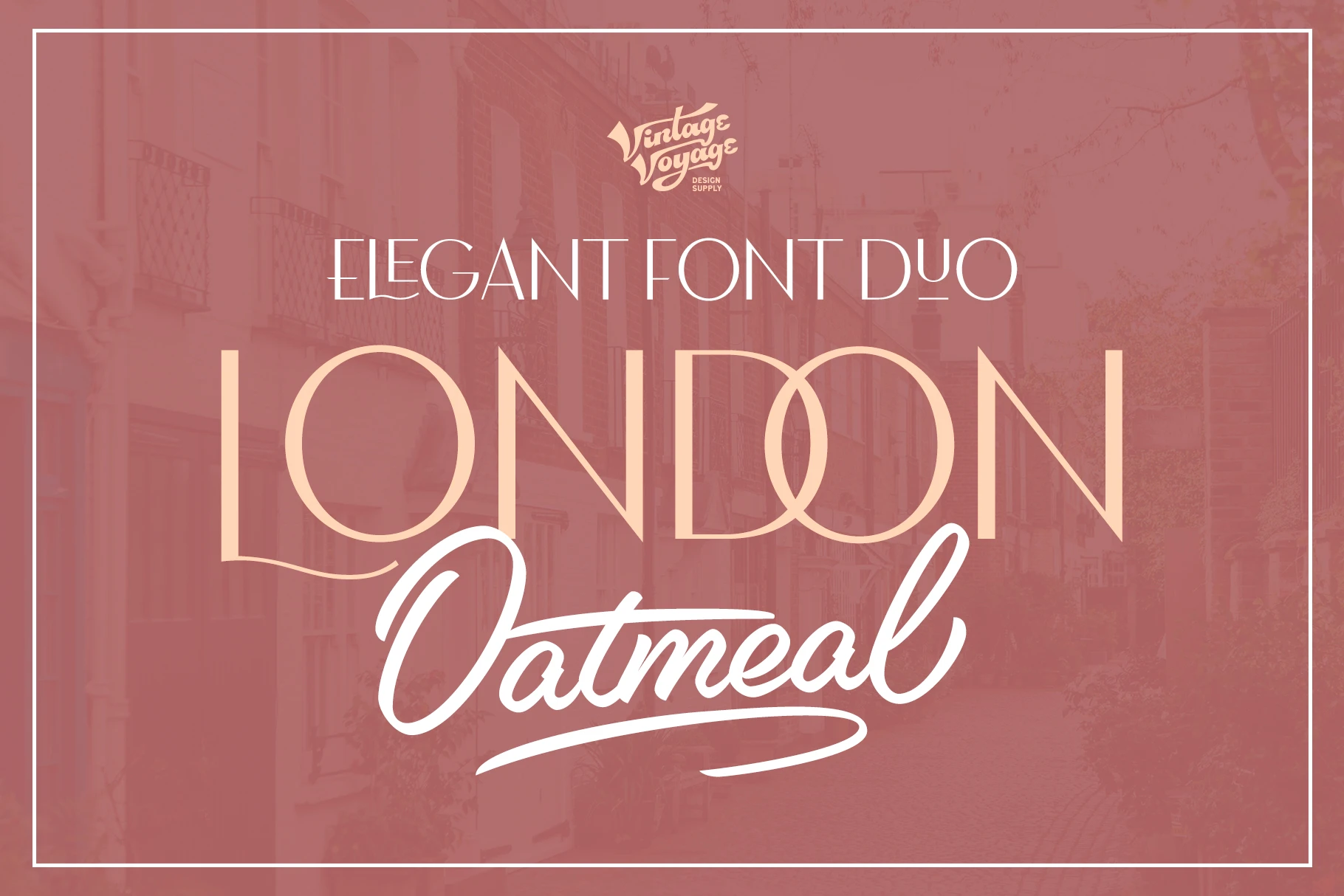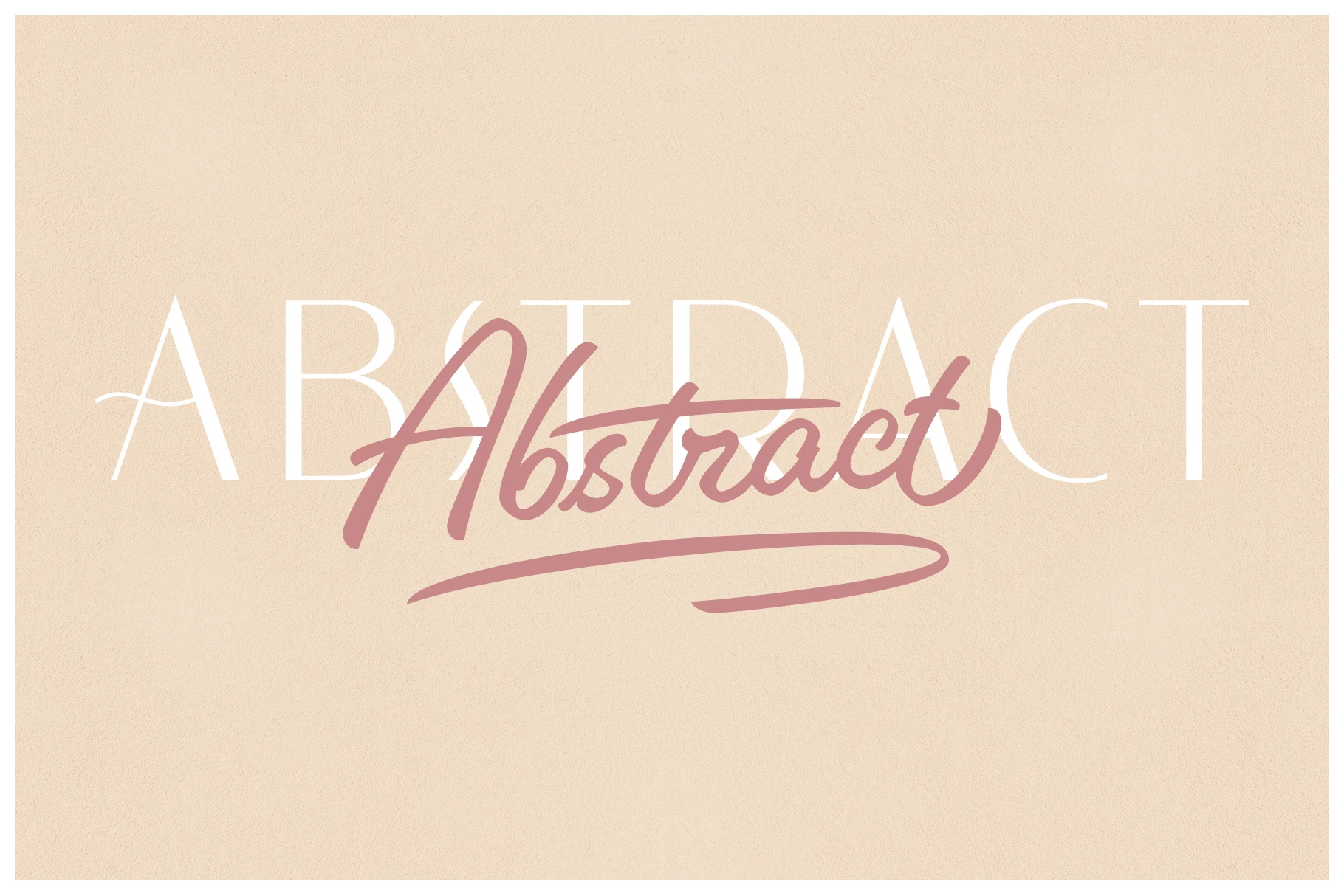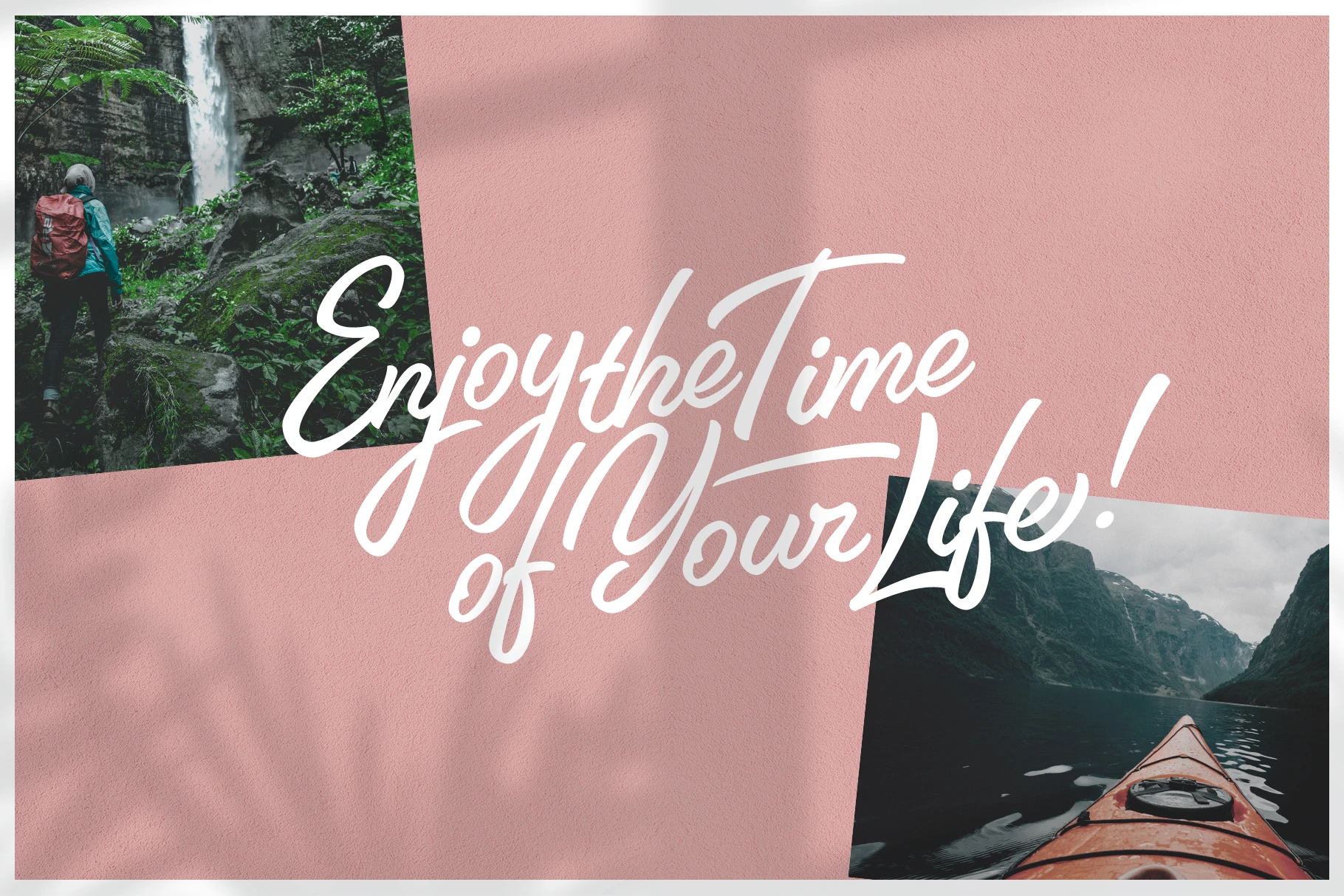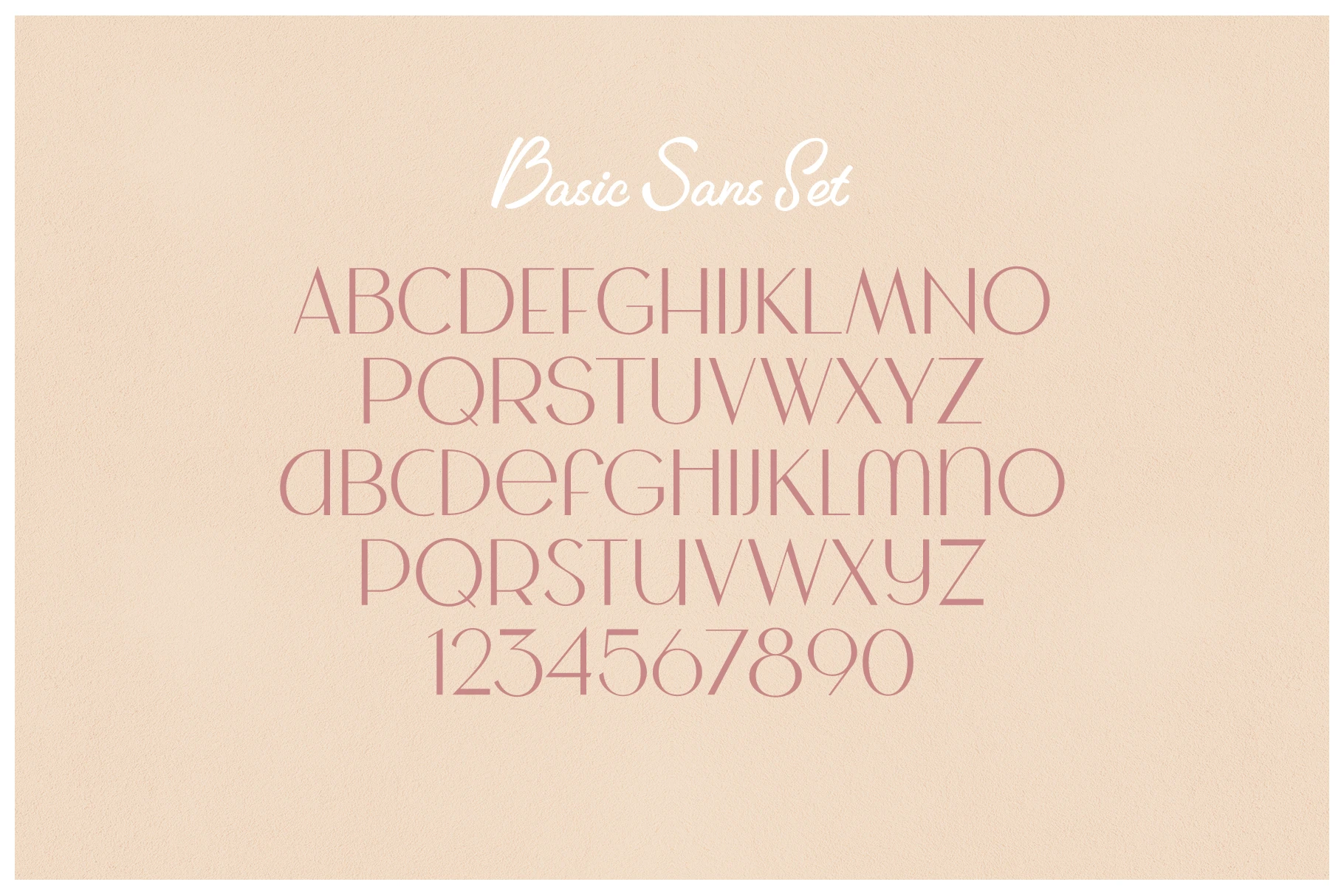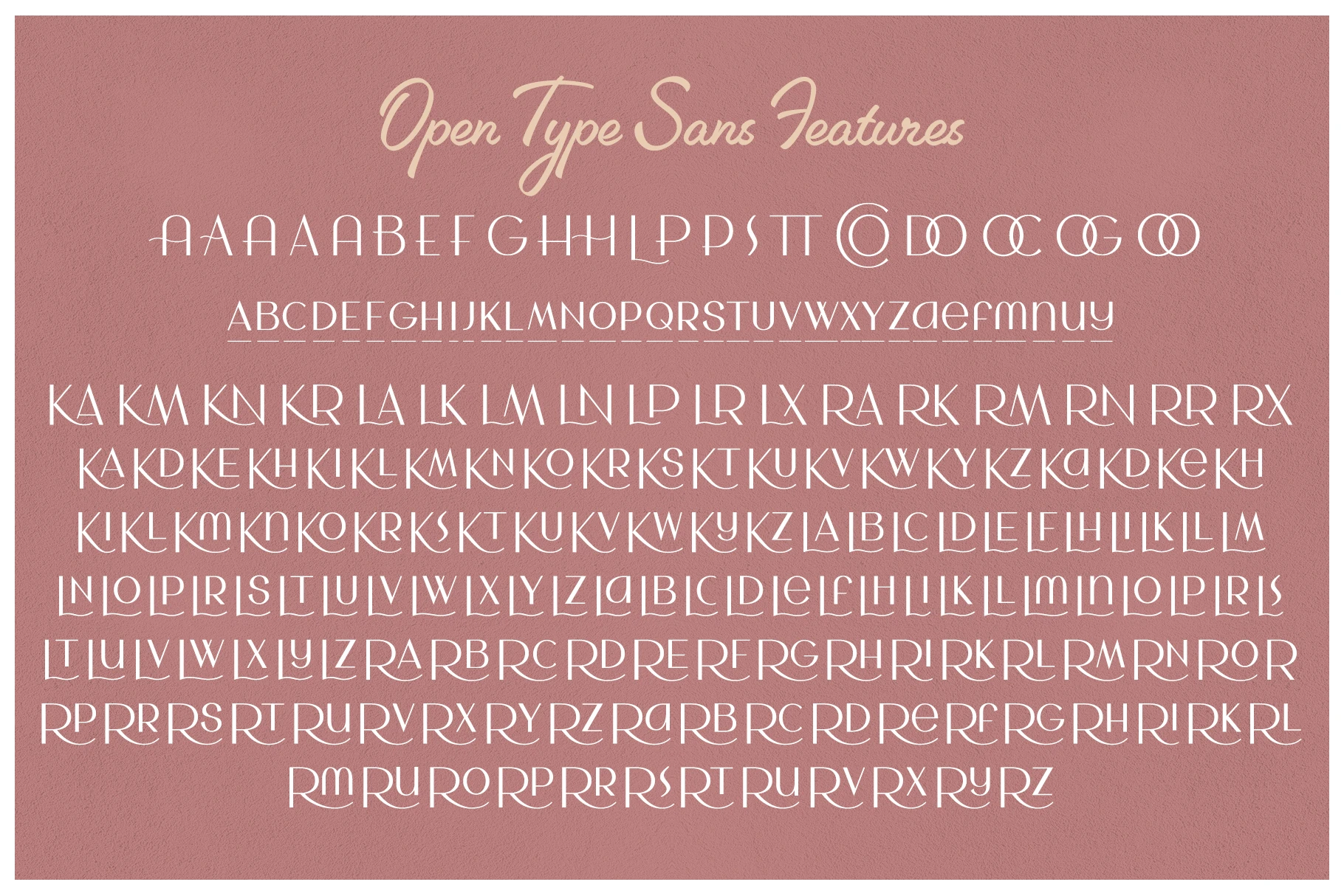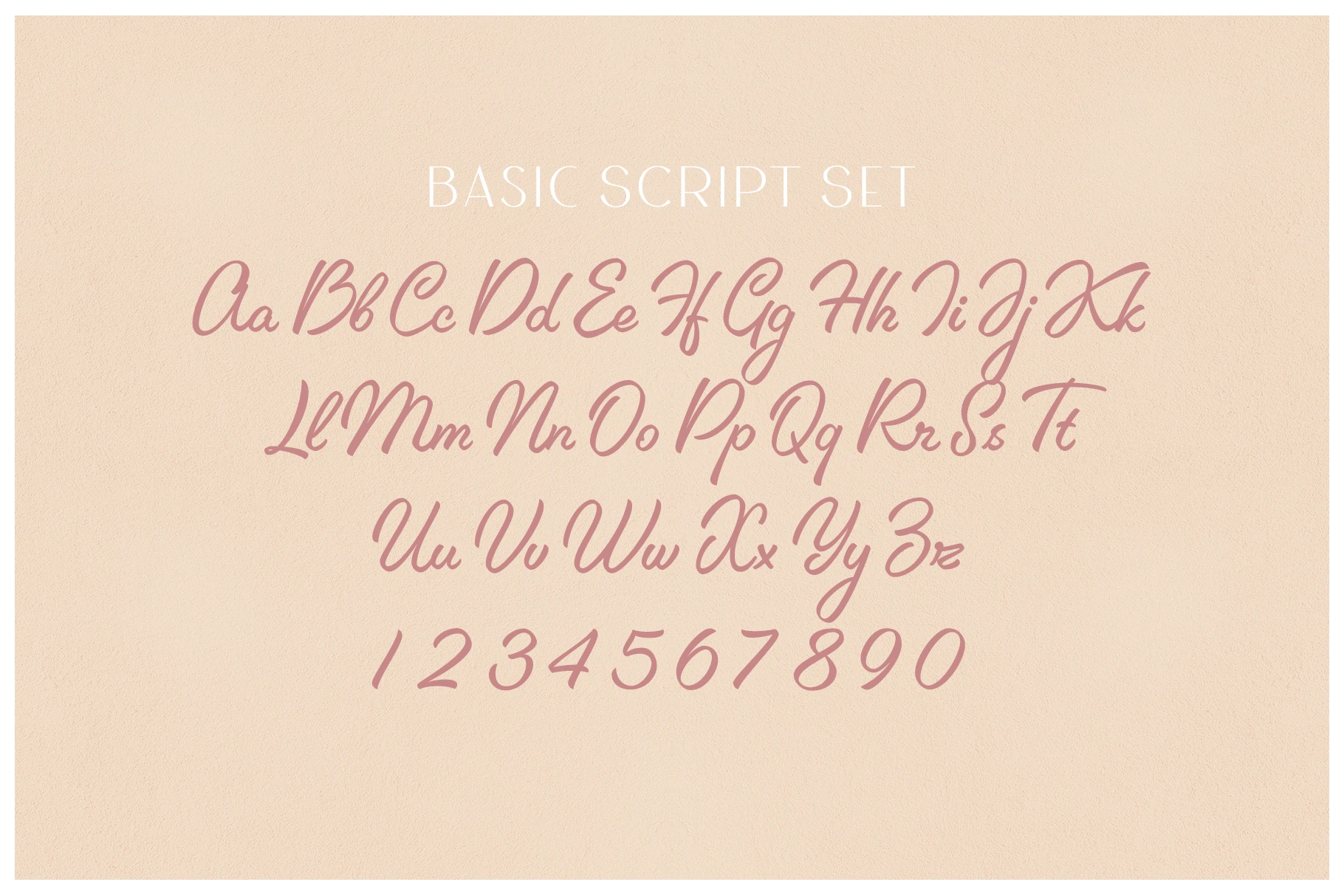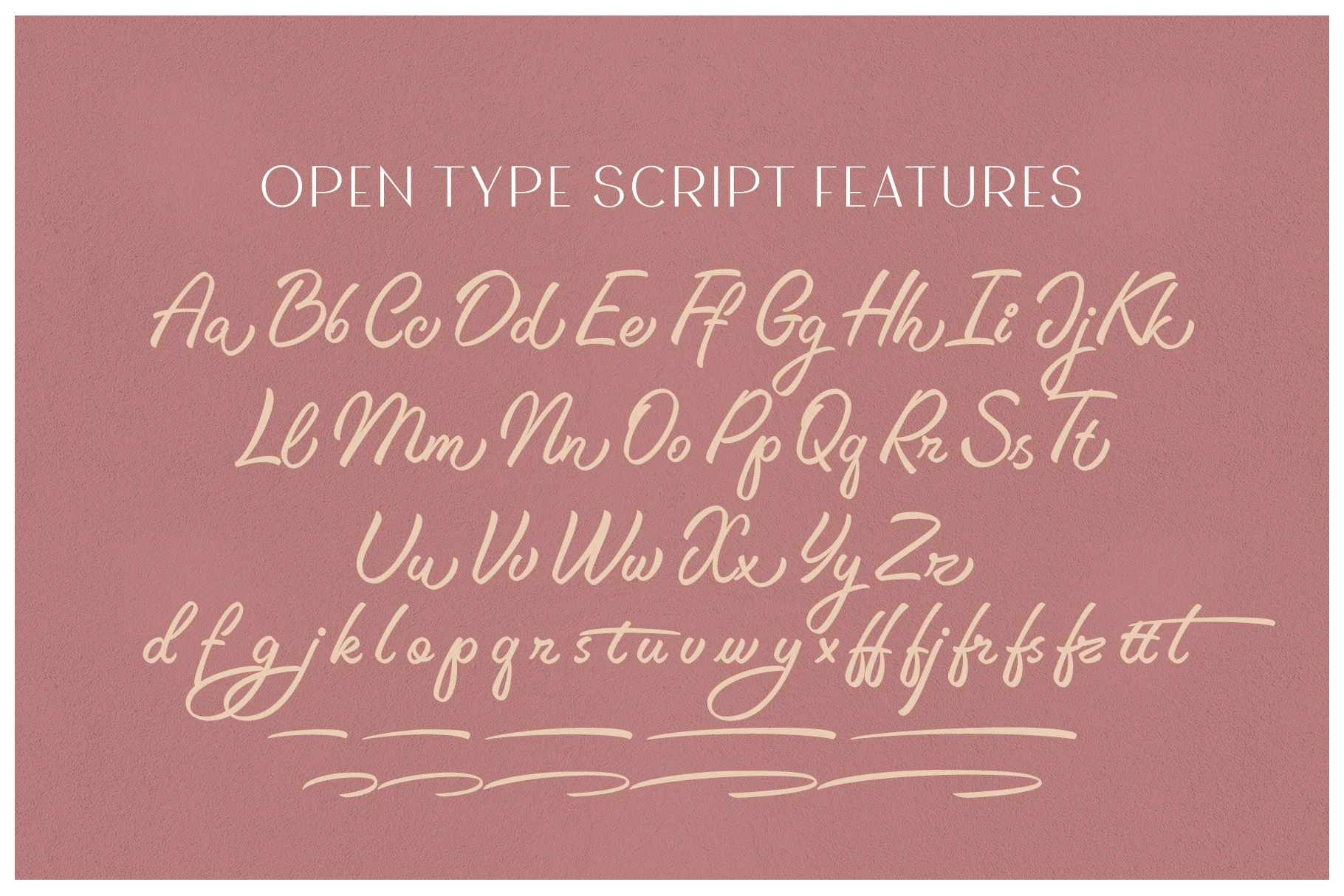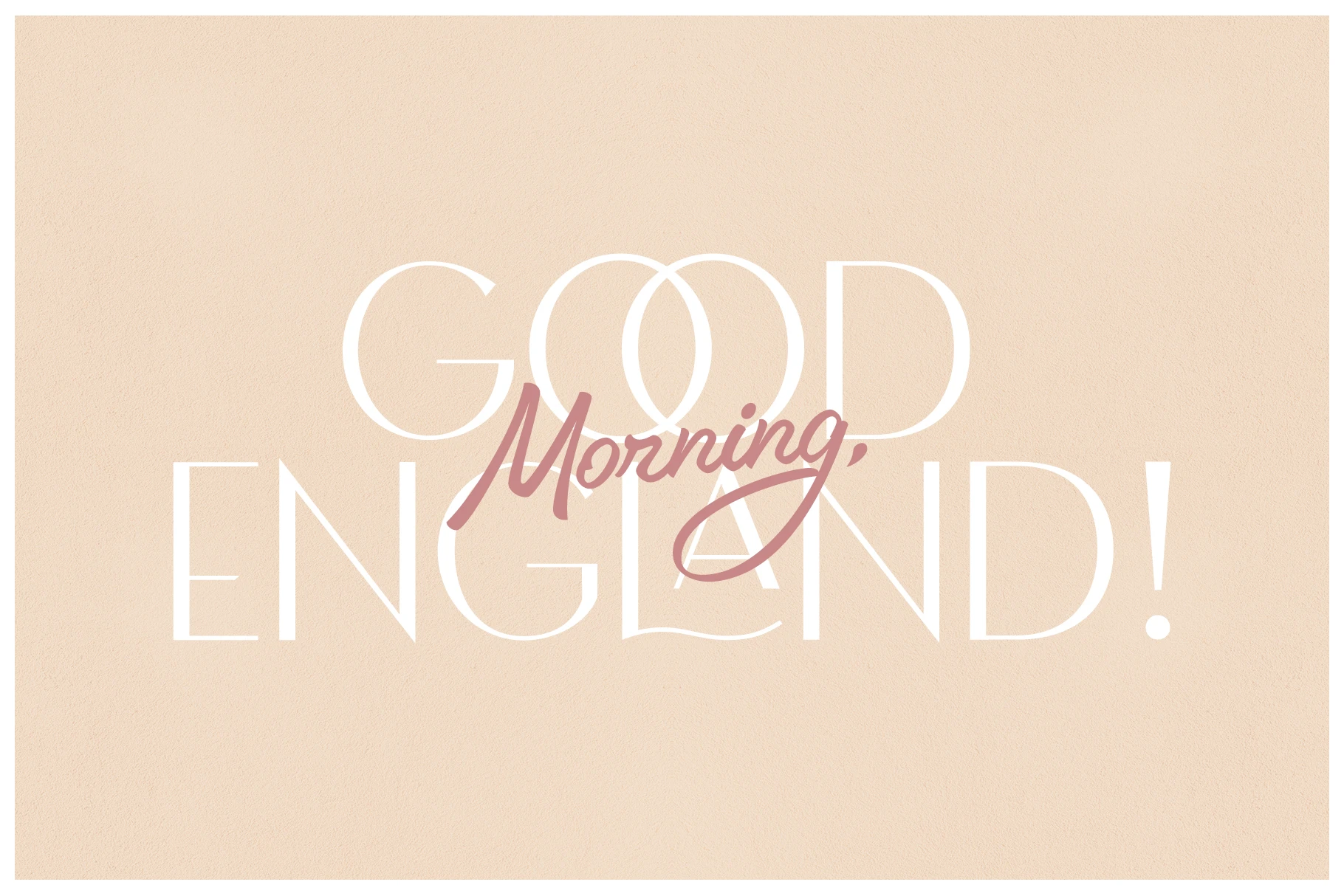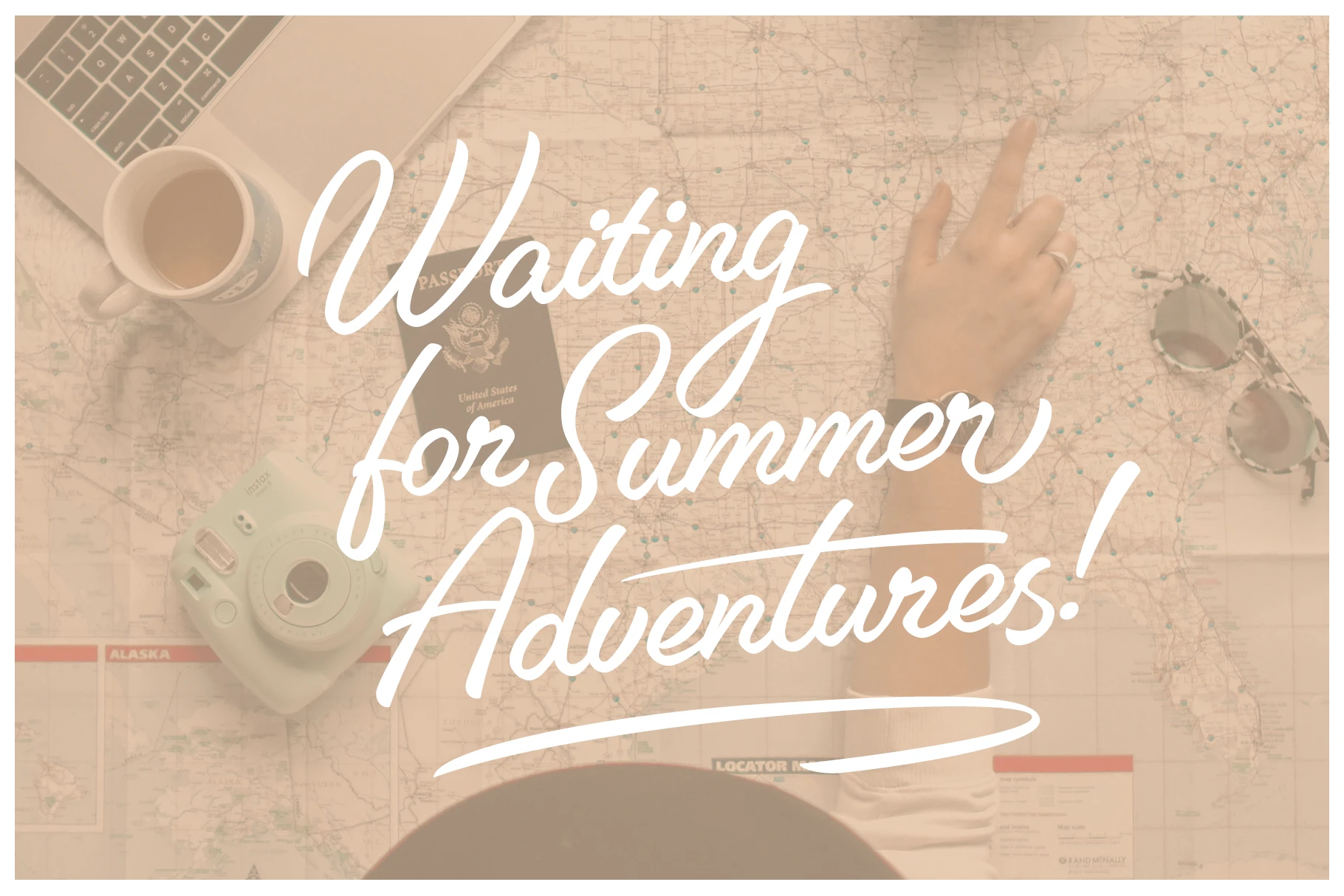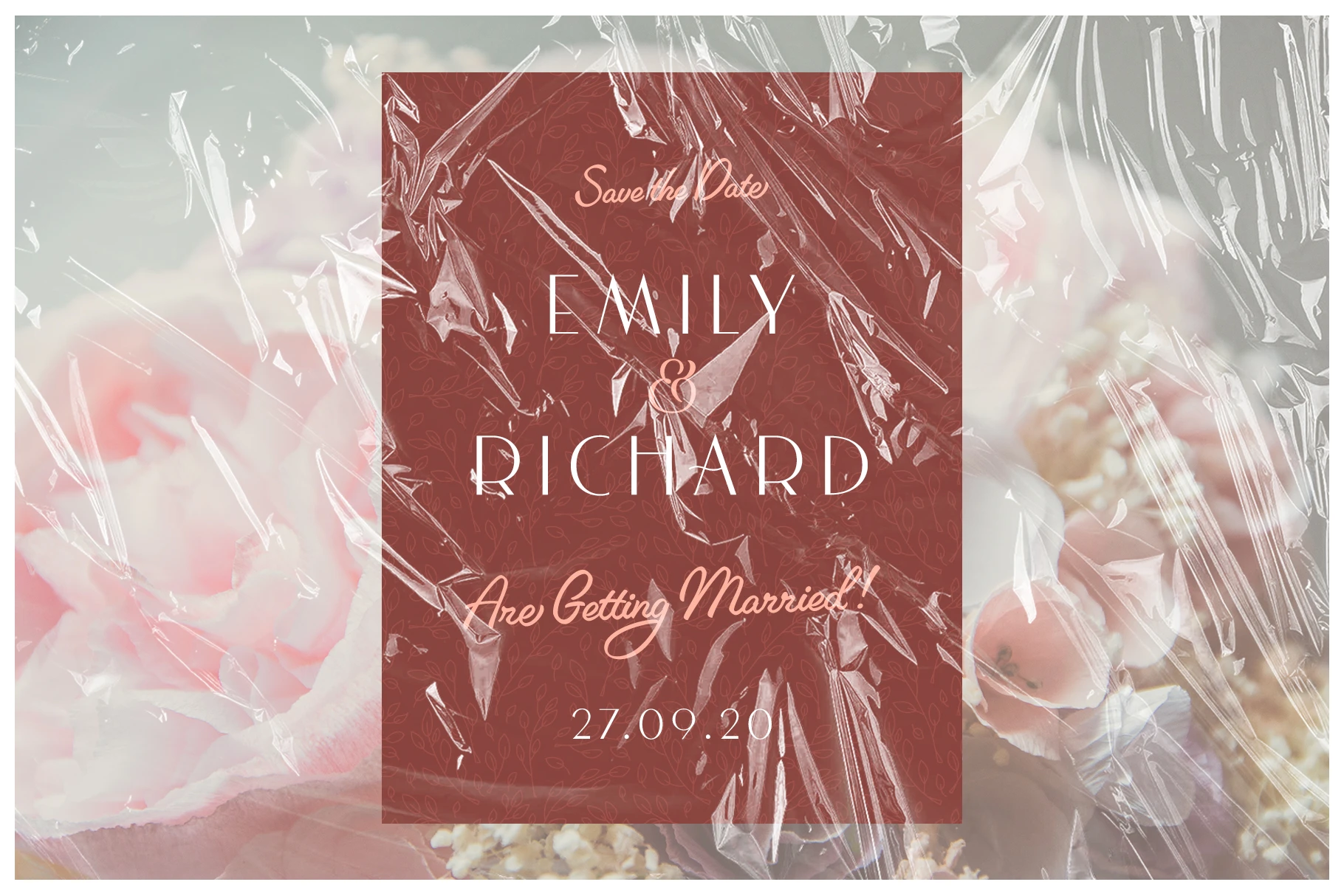
London Oatmeal Font Family
London Oatmeal is a stylish font duo combining an elegant, art-deco inspired sans-serif with a retro brush script. This refined pairing is perfect for blogs, posters, magazines, logos, and greeting or wedding cards. The sans includes both uppercase and lowercase characters, allowing for creative combinations and layout flexibility. Designed with a strong vintage-modern balance, it’s ideal for projects that need a touch of sophistication with personality.
• Common Ligatures
• Stylistic Alternates
• Stylistic Sets
London Oatmeal font styles
London Oatmeal Sans Regular
London Oatmeal Script Regular